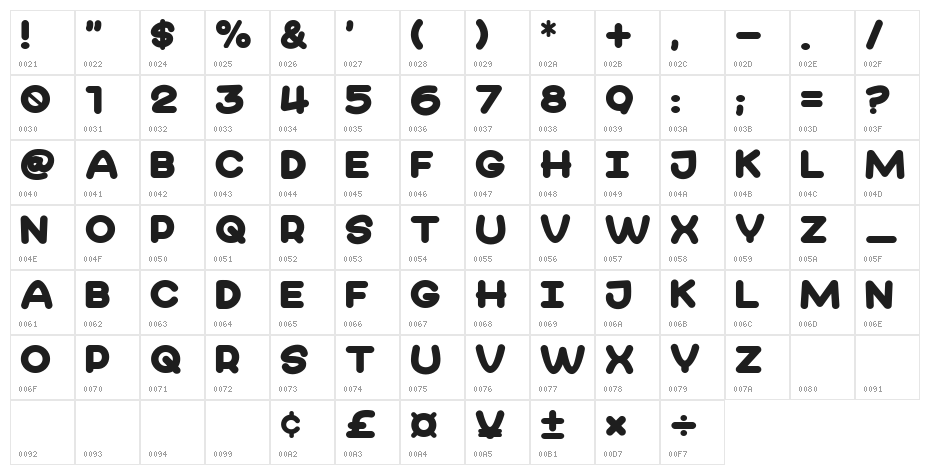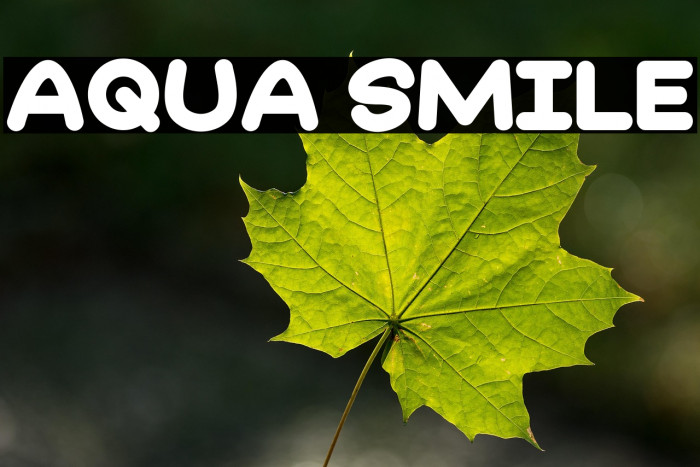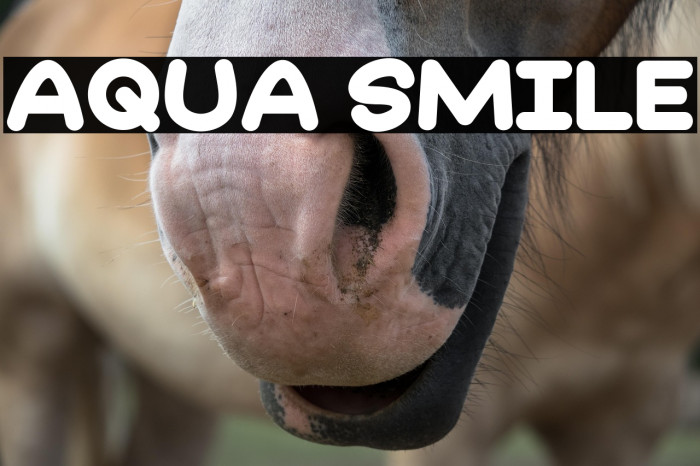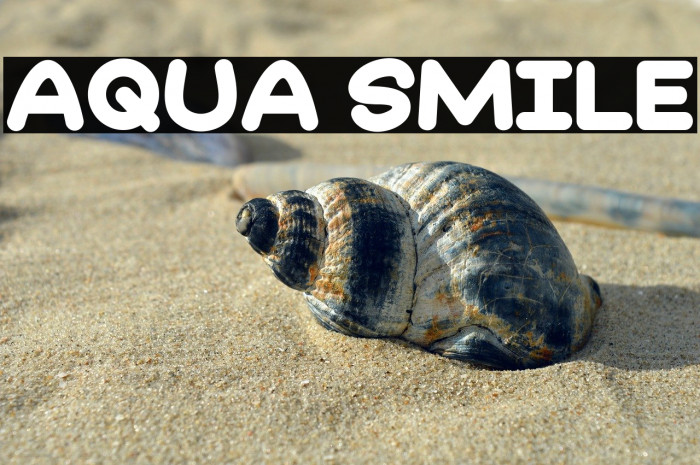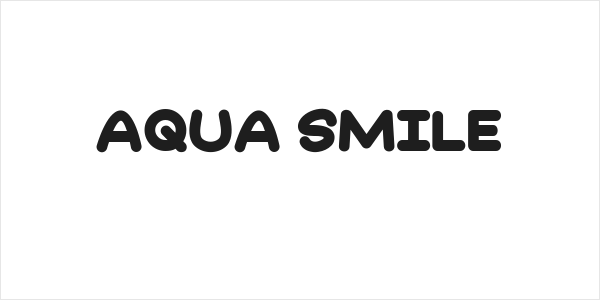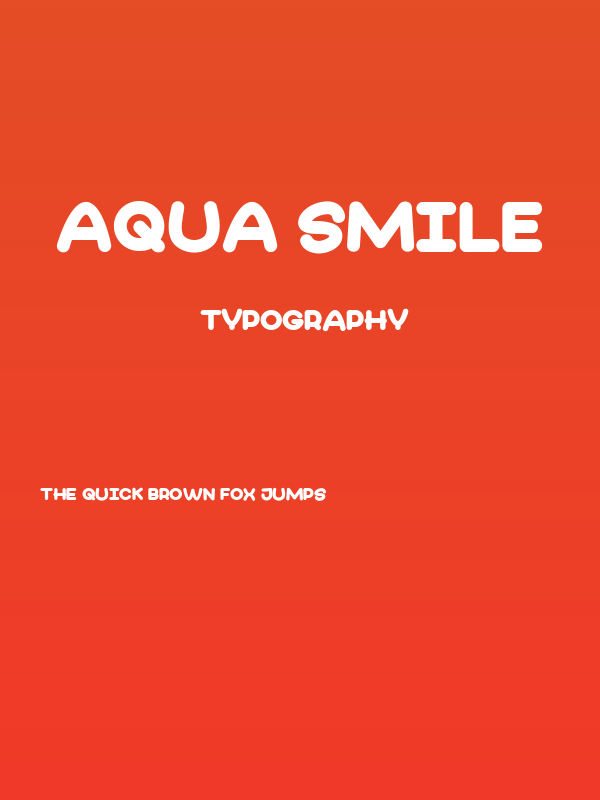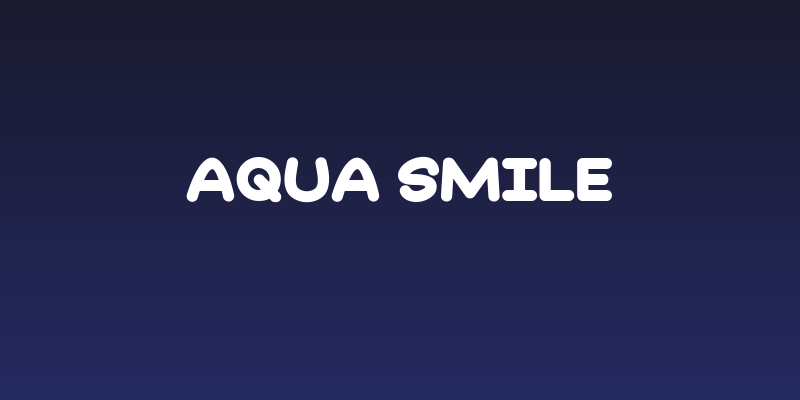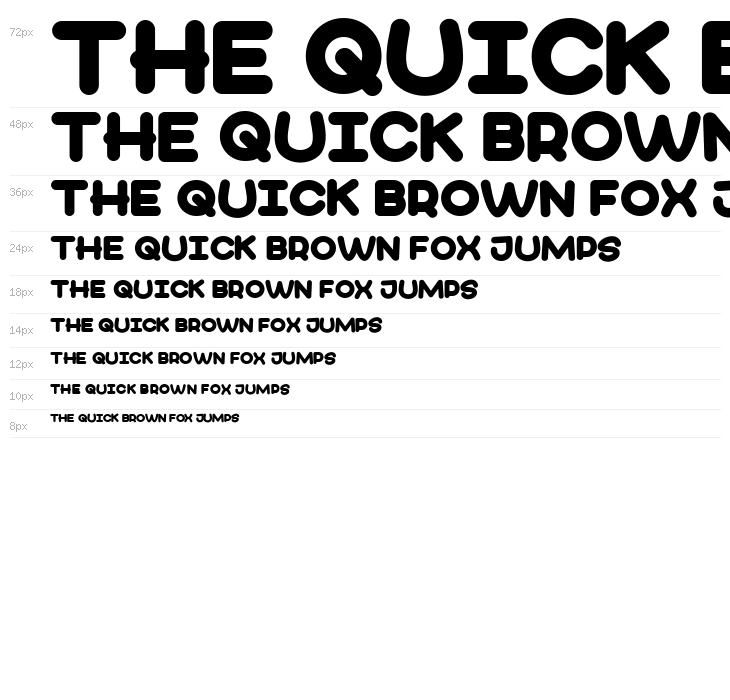
Aqua Smile Font
Aqua Smile Description
This font features a playful and rounded design, characterized by its bold and bubbly appearance. Each letter is crafted with smooth curves and a consistent stroke width, giving it a friendly and approachable feel. The characters are evenly spaced, maintaining a balanced and cohesive look across both uppercase and lowercase letters. The numbers and special characters follow the same design principles, ensuring uniformity throughout. This style is particularly suitable for projects that aim to convey warmth and positivity.
Overall StylePlayful
Proposed ProjectsIdeal for children's books, playful branding, greeting cards, and casual digital content.